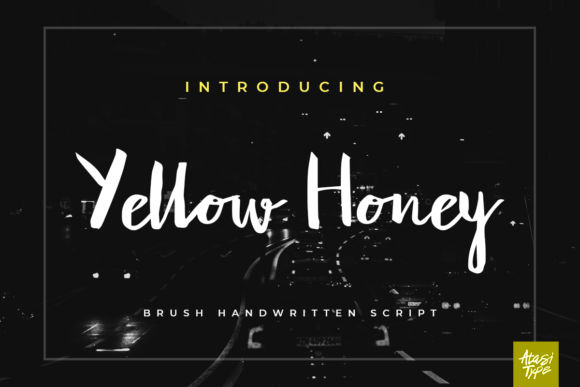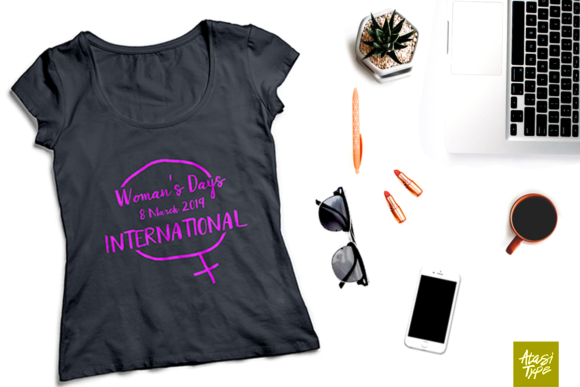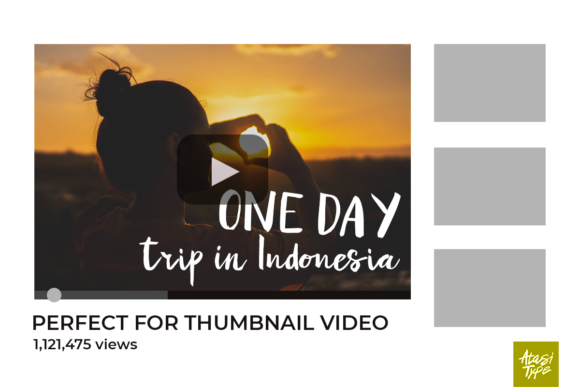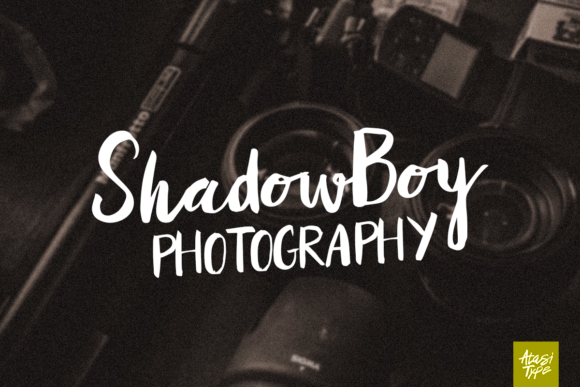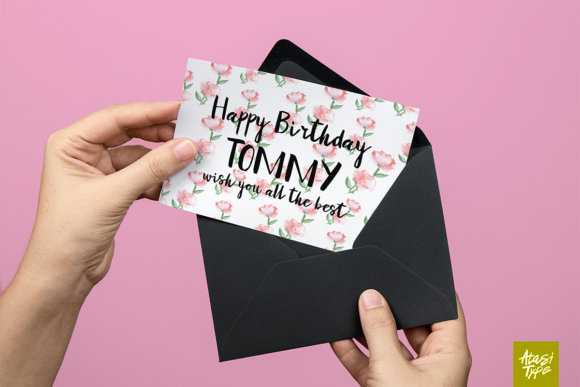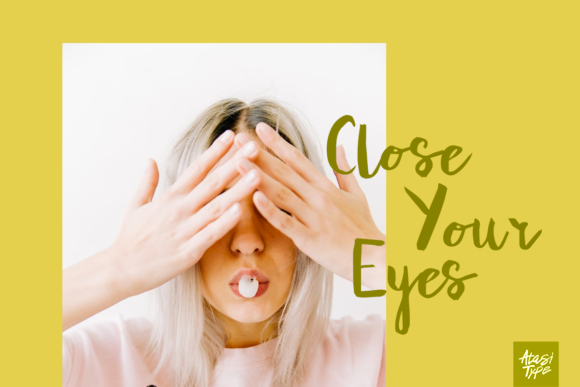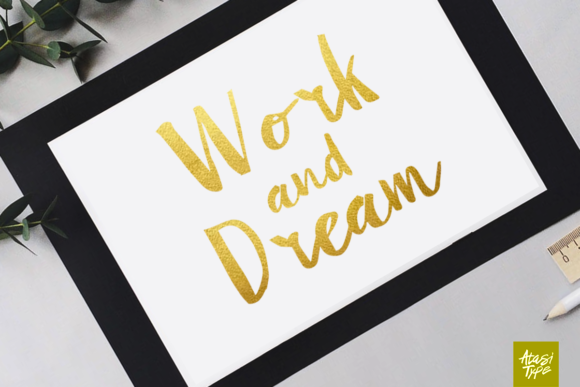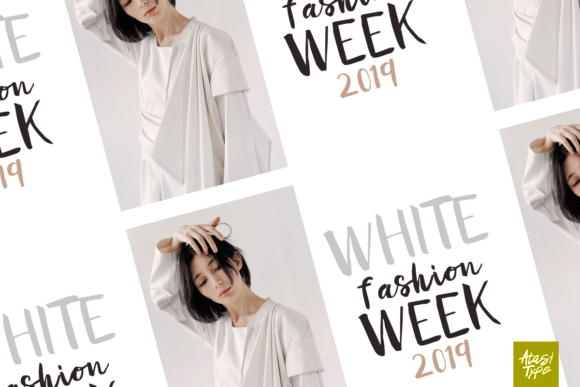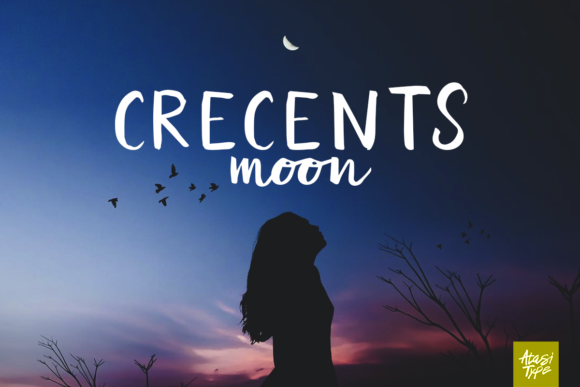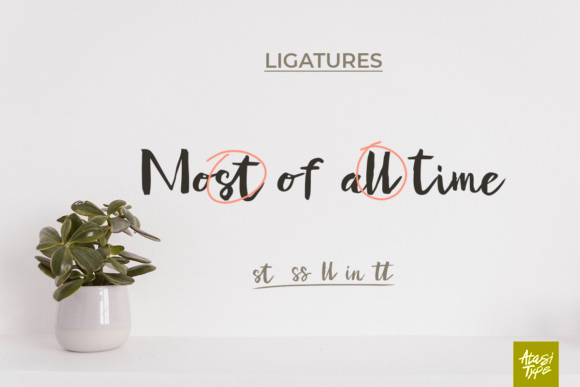
Yellow Honey Font
About Yellow Honey Font
The Yellow Honey is an amazing script font with a natural handwritten touch.
It’s suitable for logos, headlines, apparel, branding, invitations, thumbnail videos, and much more!